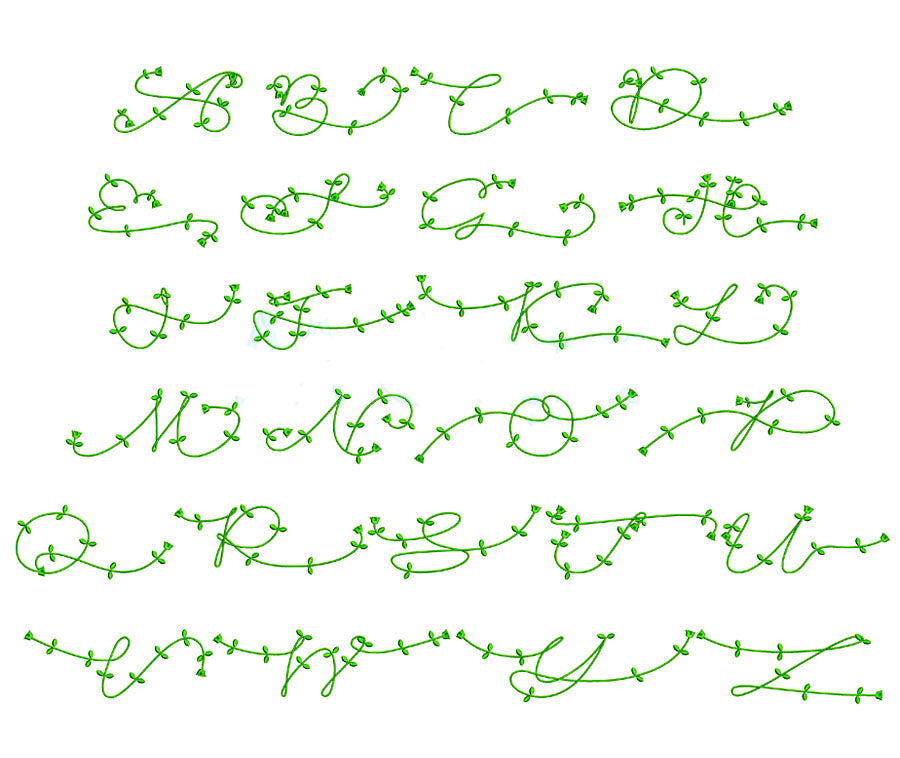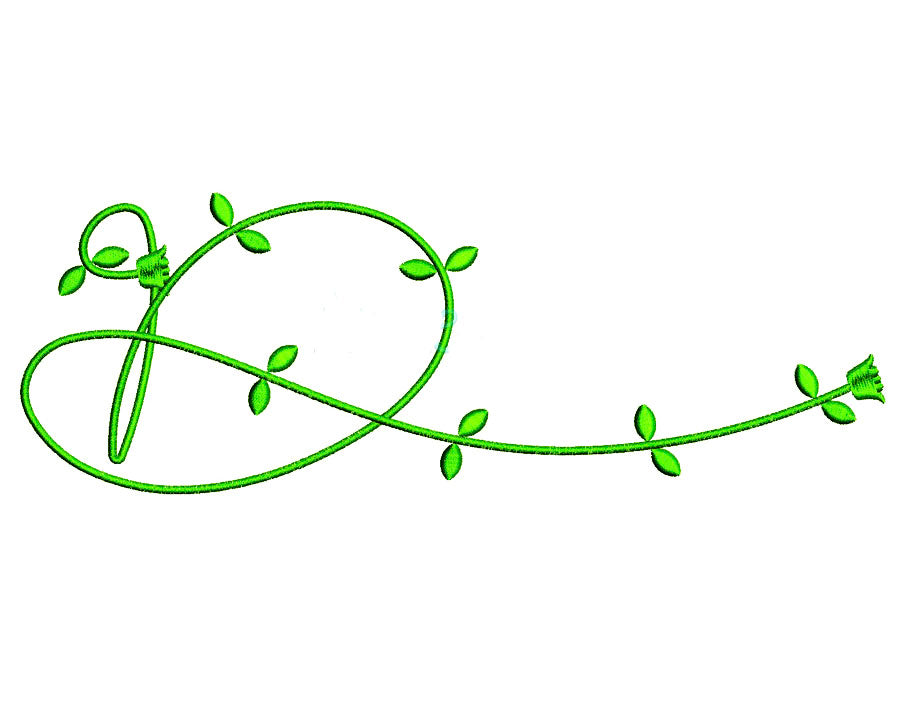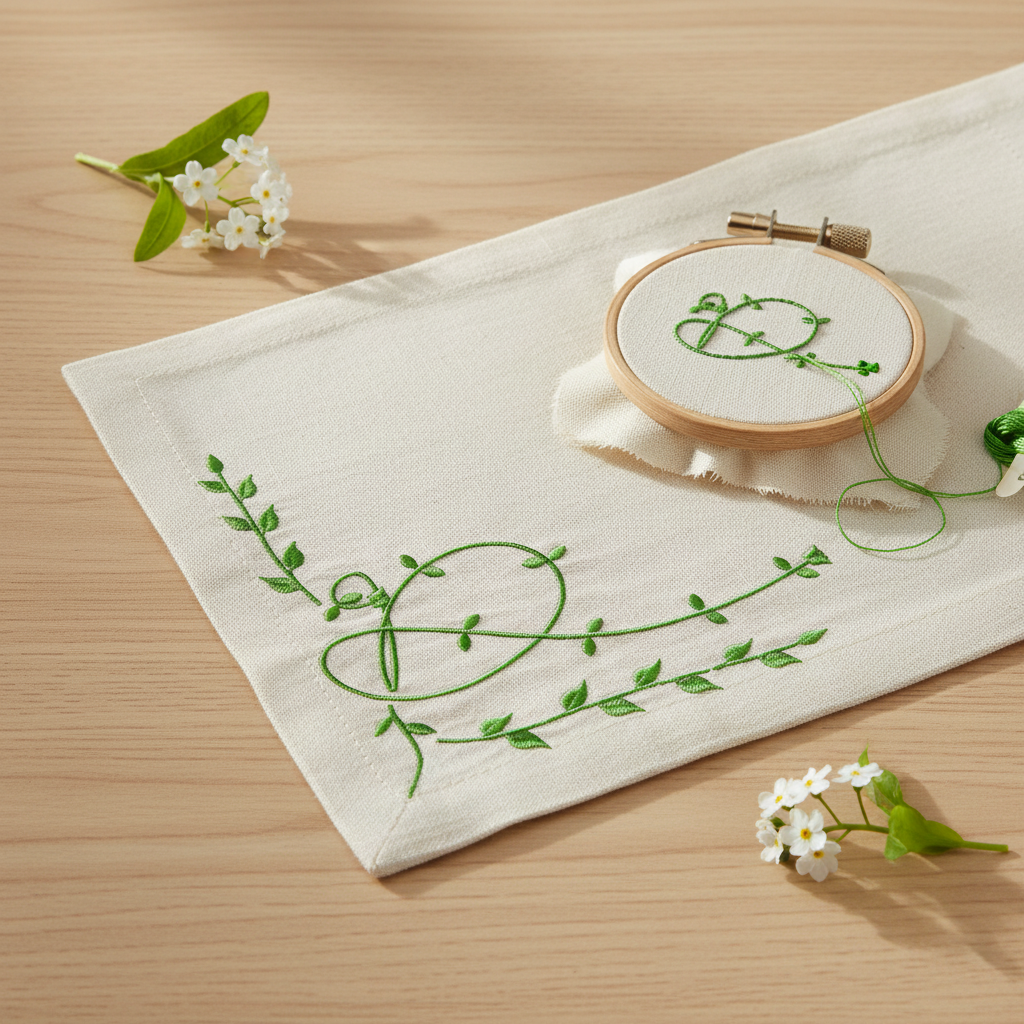
Botanical Vine Embroidery Font | Leafy Script Alphabet | BX PES DST
Add a fresh botanical touch to your machine embroidery projects with the Botanical Vine Embroidery Font. Delicate leafy vines weave through every letter, creating a graceful script alphabet for monograms, garden-inspired gifts, linens, and personalized keepsakes.